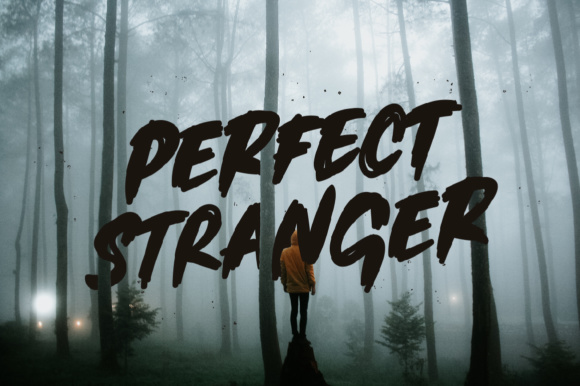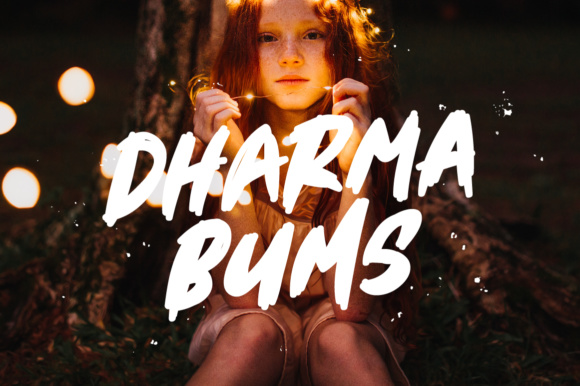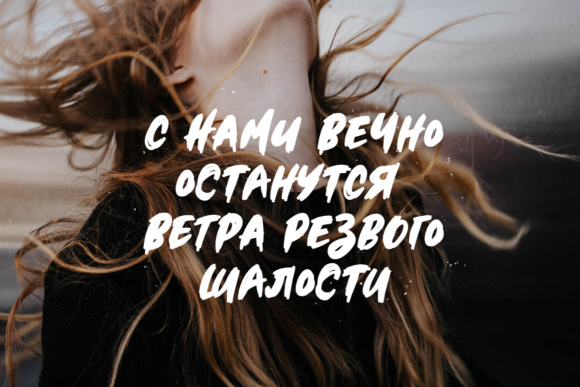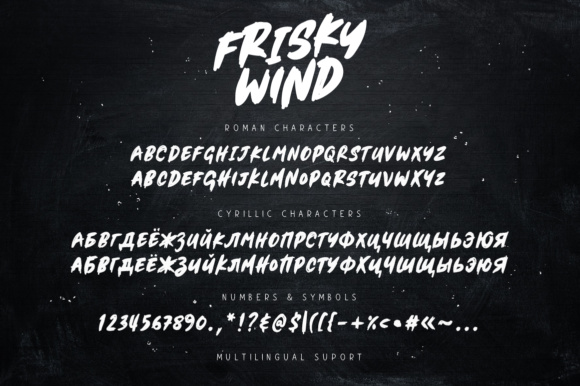
Introducing Frisky Wind Font: Add a Breezy Touch to Your Designs
Are you tired of using the same old fonts in your designs? Do you want to add a touch of modernity and style to your projects? Look no further than Frisky Wind Font, a beautiful brush font that looks like it’s been impacted by the wind. This breezy font is perfect for designers and crafters who want to add a unique and creative element to their work.
What is Frisky Wind Font?
Frisky Wind Font is a brush font that has been carefully crafted to resemble the effect of wind on written text. The font features soft, sweeping strokes that give it a dynamic and energetic feel. The letters are slightly distressed, giving the font a organic and handmade look that’s perfect for designs that need a personal touch.
Key Features of Frisky Wind Font
- Unique Wind-Blown Effect: The font’s wind-blown effect gives it a distinctive look that’s sure to grab attention.
- Modern and Stylish: Frisky Wind Font is perfect for designers who want to add a touch of modernity to their designs.
- Easy to Read: Despite its distressed look, Frisky Wind Font is easy to read and can be used for a variety of design projects.
- Highly Versatile: The font can be used for a range of projects, from branding and advertising to packaging and signage.
How to Use Frisky Wind Font in Your Designs
Frisky Wind Font is a versatile font that can be used in a variety of design projects. Here are a few ideas to get you started:
- Branding and Advertising: Use Frisky Wind Font to create eye-catching logos, posters, and advertisements that will grab attention.
- Packaging Design: Add a touch of personality to your packaging designs with Frisky Wind Font.
- Signage: Use Frisky Wind Font to create eye-catching signs and displays that will stand out.
- Digital Design: Frisky Wind Font can also be used in digital designs, such as social media graphics and website headers.
Tips for Pairing Frisky Wind Font with Other Fonts
When pairing Frisky Wind Font with other fonts, it’s best to choose fonts that complement its playful and dynamic feel. Here are a few tips:
- Pair with a Serif Font: Pair Frisky Wind Font with a serif font, such as Arial or Times New Roman, to create a nice contrast between the two fonts.
- Use a Sans-Serif Font: Pair Frisky Wind Font with a sans-serif font, such as Helvetica or Open Sans, to create a clean and modern look.
- Experiment with Script Fonts: Frisky Wind Font also pairs well with script fonts, such as Pacifico or Great Vibes.
Frisky Wind Font is a beautiful and versatile font that’s perfect for designers and crafters who want to add a touch of modernity and style to their designs. With its unique wind-blown effect and highly legible letters, Frisky Wind Font is sure to become a favorite in your font collection. So why wait? Download Frisky Wind Font today and start creating stunning designs that will grab attention!